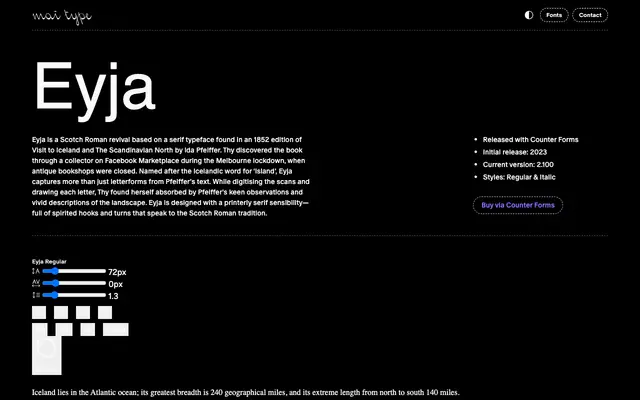
Eyja
Mai Type · Thy · 2023
A Scotch Roman revival drawn from an 1852 edition of Ida Pfeiffer's travel writing, digitised by Thy during the Melbourne lockdown.
Sourced from a copy of Ida Pfeiffer's 'Visit to Iceland and The Scandinavian North' acquired via Facebook Marketplace, Eyja translates the spirited hooks and high contrast of its nineteenth-century source into a two-style digital family. Named after the Icelandic word for 'island', the typeface carries a printerly quality that reflects both its origins and the close reading of Pfeiffer's text that shaped the drawing process. Released in partnership with Counter Forms, it suits book, editorial and literary work where warmth and historical reference matter.
Eyja is explicitly described as a Scotch Roman revival, sourced from an 1852 printed book, with characteristic spirited hooks and high contrast typical of the Scotch Roman tradition.